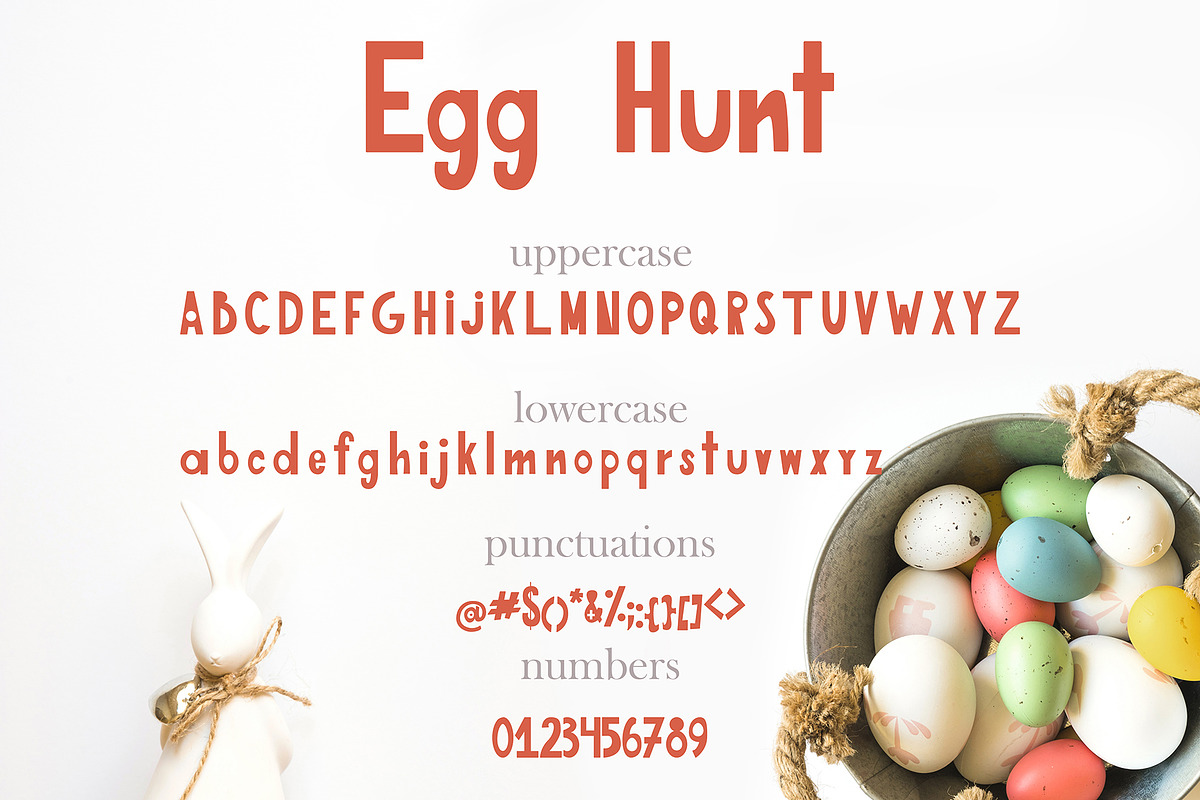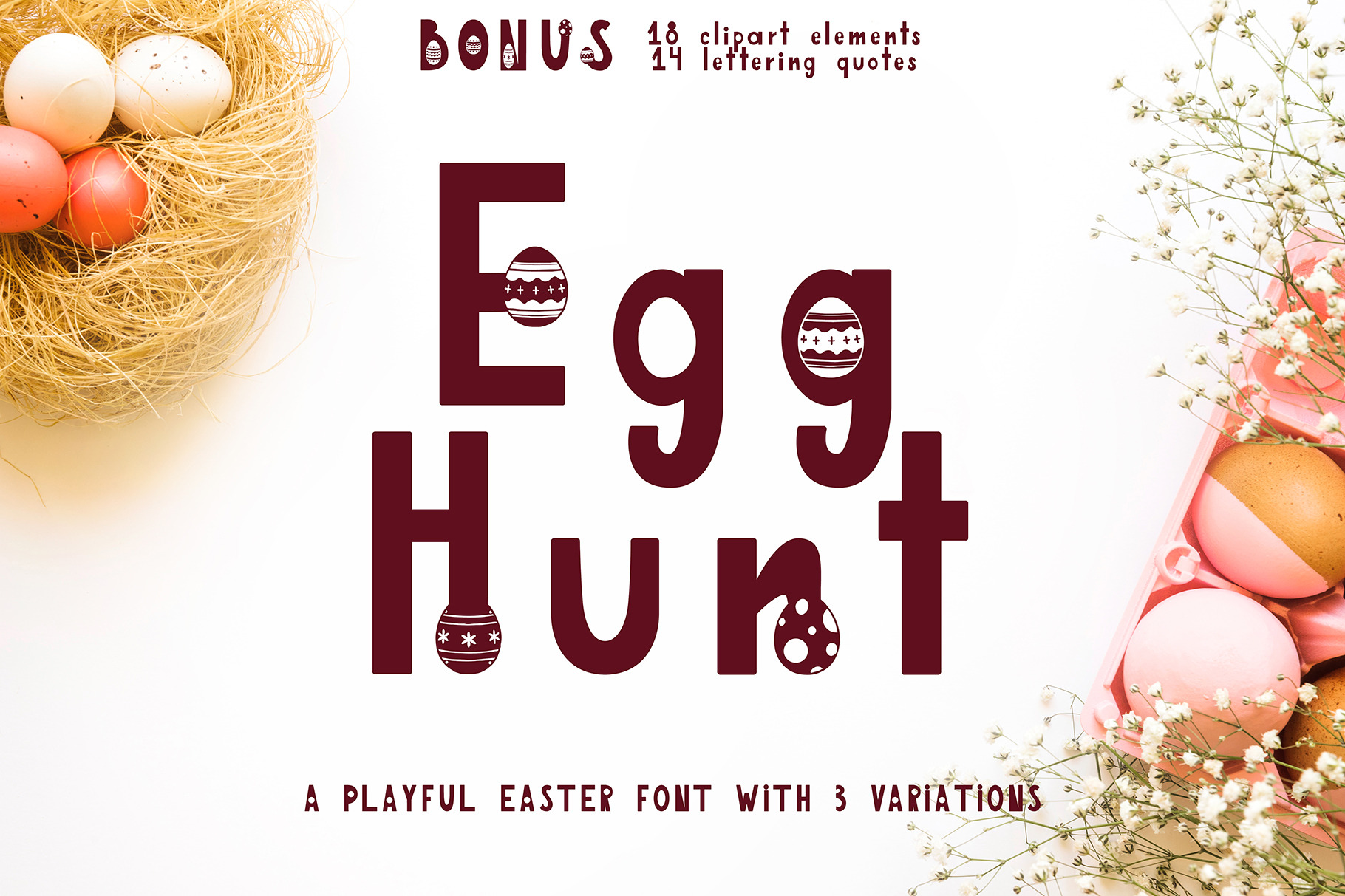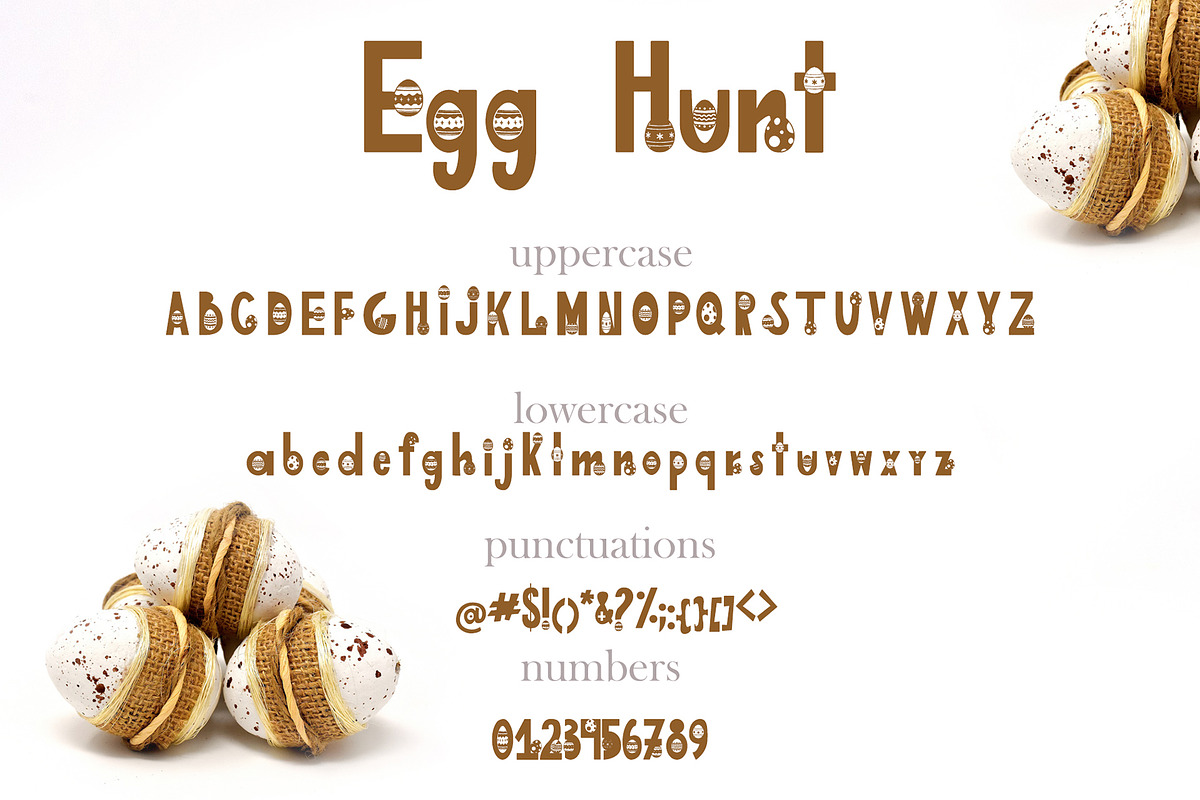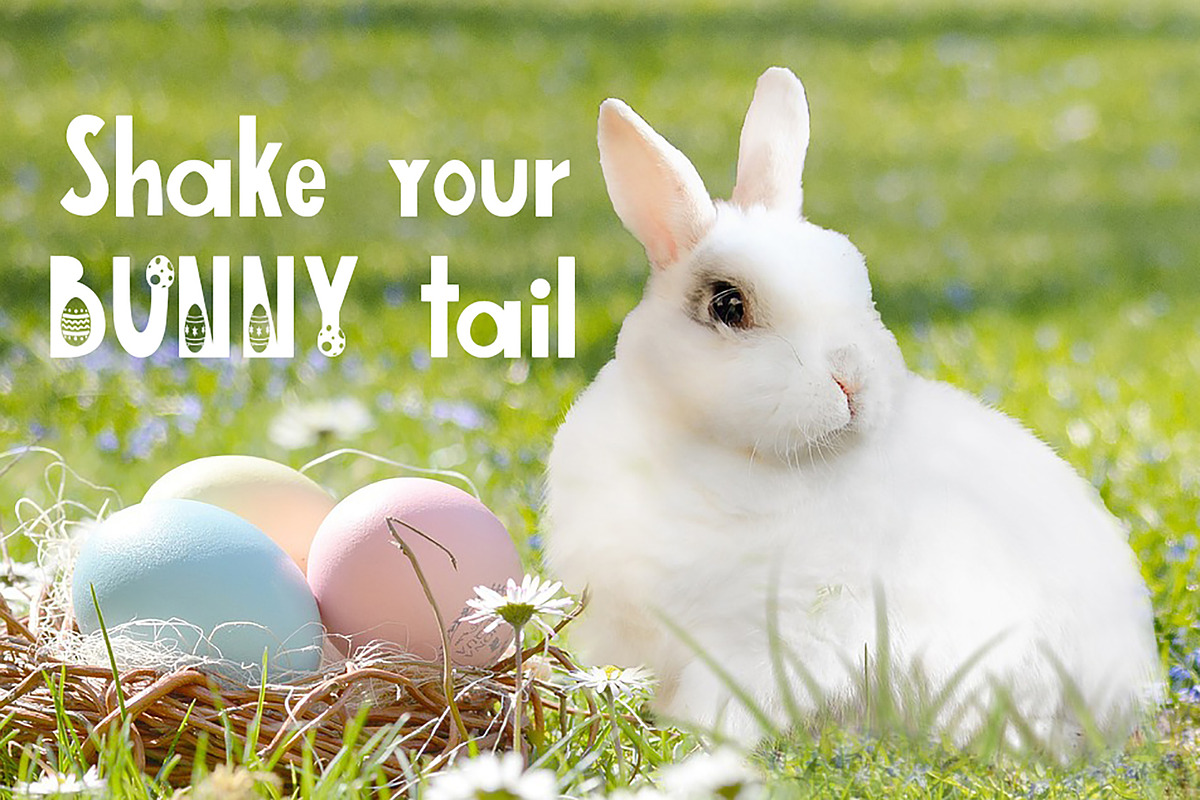
Egg Hunt-decorated font
I'm happy to introduce you a Egg-Hunt handdrawn font! A playful font that comes in three variations which can be used individually or mixed together for a unique and fun look.
This is the perfect font that is suitable for all your funny designs. Simply Egg-Hunt makes custom lettering a dream thanks to all the little extra decorative options you can include for a pretty and unique customisation.
Elements of the clipart will help to complement the design and make a unique product. Phrases letting make your product more unique and interesting.
Perfect for greetings, branding, prints, invitations, and crafting, print, t-shirt design, to personalised logos, handwritten quotes and so much more!